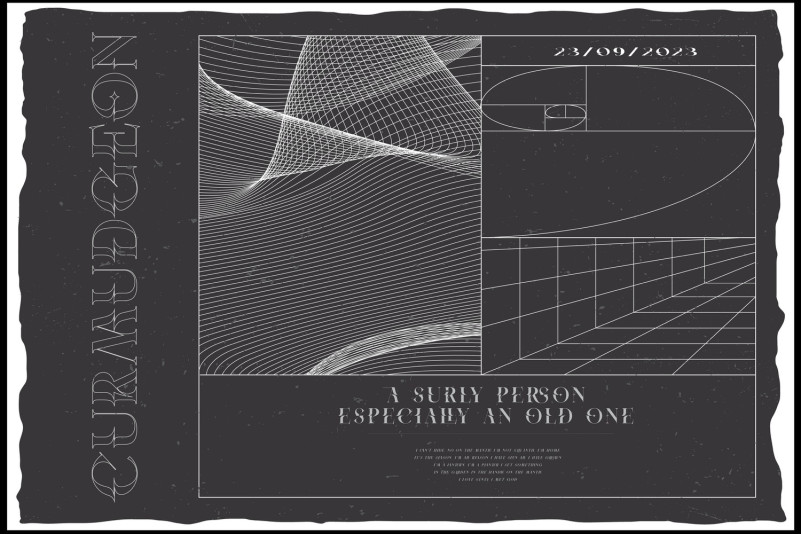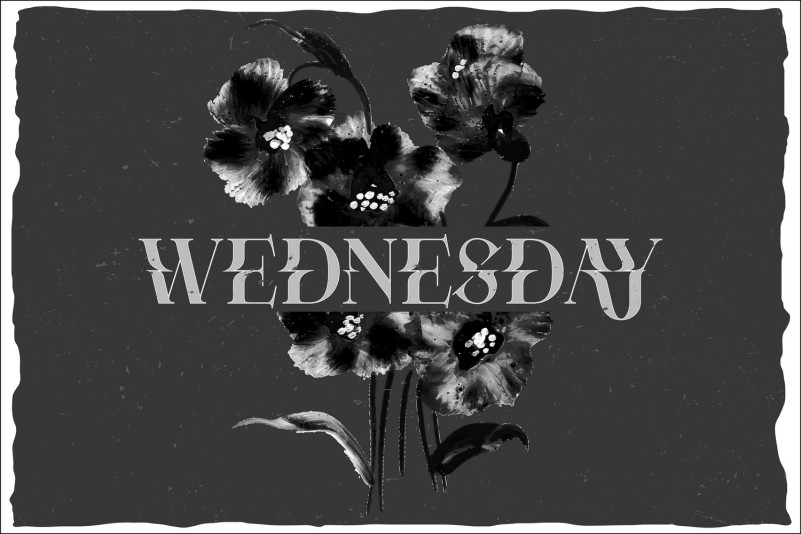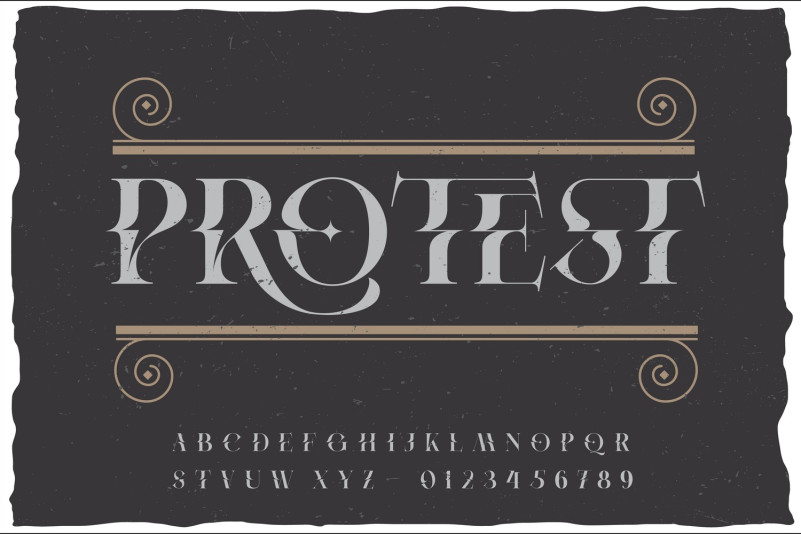
Protest Font
Protest Stylish Serif Font is a serif modern and classic typeface that has own unique style & modern look. Its a Classy serif typeface Unique alternate , multilingual support with perfect kerning. This typeface is perfect for an elegant & luxury logo , classy editorial design, women’s magazine, fashion brand , cosmetic brand, fashion promotion , modern advertising design, invitation card, art quote, home decoration , book/cover titles, special events, and much more.
To make it look more unique, here we prepared some ligatures:
AB AD AF AH AK AP AR AY CA CM CN CX EA EE EL EF EZ FE FF FT HF HH HK HP HR KA KS KO LA LE LL LF LT NS NN QA QM QN QX ZT XK XP XR XS WA VA UN TF TE ST SS RA RC RO RT RS